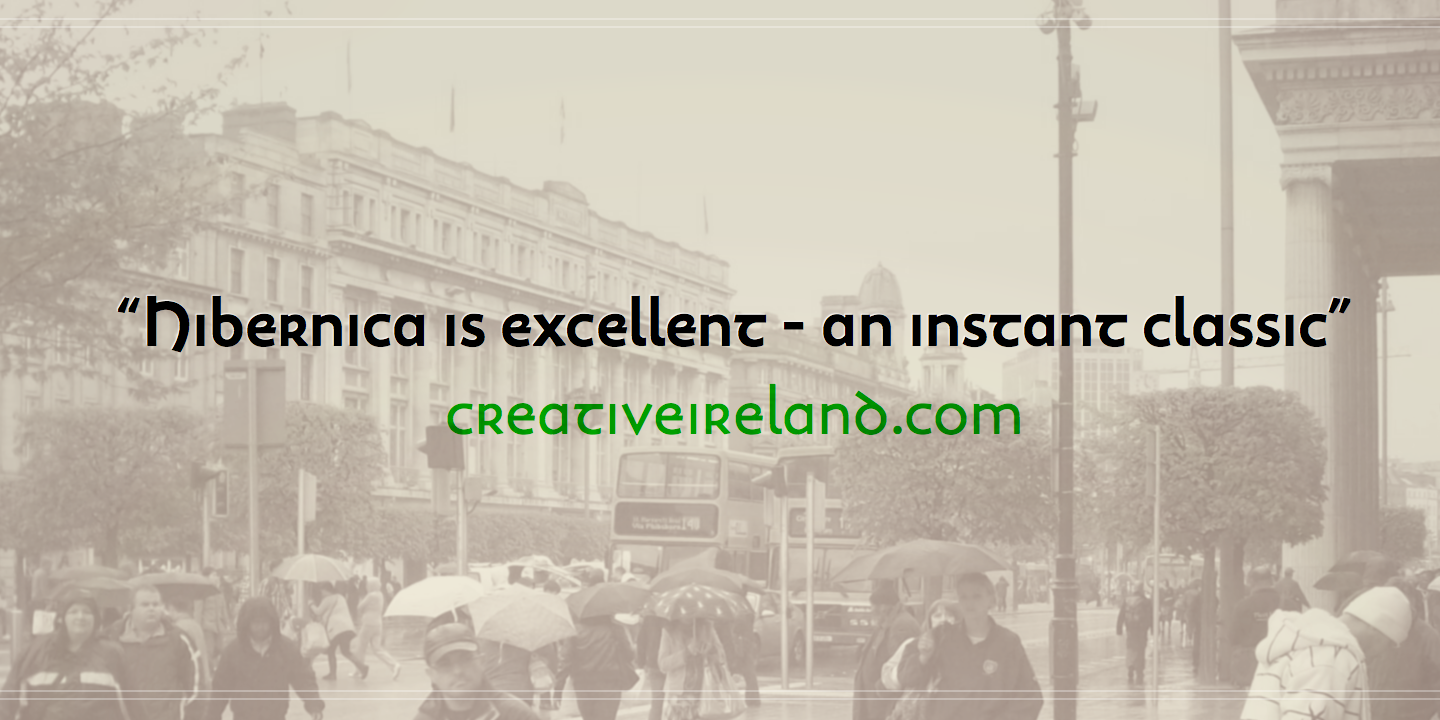
Hibernica Font is perfect for Irish pub branding, Celtic cultural festivals, traditional heritage museums, Gaelic language publications, emerald isle tourism marketing, folk music venues, shamrock-themed events, and authentic Irish celebration materials.
This font is exciting because it captures the mystical spirit of ancient Ireland with Celtic heritage and timeless Gaelic sophistication. Hibernica Font features traditional letterforms with Celtic knotwork inspiration that evoke the rolling hills of Ireland and ancient manuscript beauty, making it ideal for projects that require authentic Irish character and cultural reverence.
The Hibernica Font family includes regular, ornate, condensed, and decorative variants, along with Celtic alternates and traditional ligatures that enhance its Irish character. Each weight maintains the font's heritage aesthetic while providing different levels of cultural expression for various Celtic and Irish design applications.
Whether you're developing authentic Irish brands, creating compelling cultural heritage materials, or designing traditional celebration campaigns, Hibernica Font Free Download delivers exceptional authenticity and Celtic appeal. Its distinctive Gaelic style makes it an excellent choice for designers seeking to add genuine Irish heritage and cultural sophistication to their projects. The font's versatility extends from traditional pub signage to cultural festival materials, ensuring consistent performance across all Irish applications. With its respectfully crafted letterforms and Celtic proportions, this typeface provides professional results that honor Irish traditions and establish authentic cultural presence with its unmistakable Hibernian character and ancient Gaelic elegance.